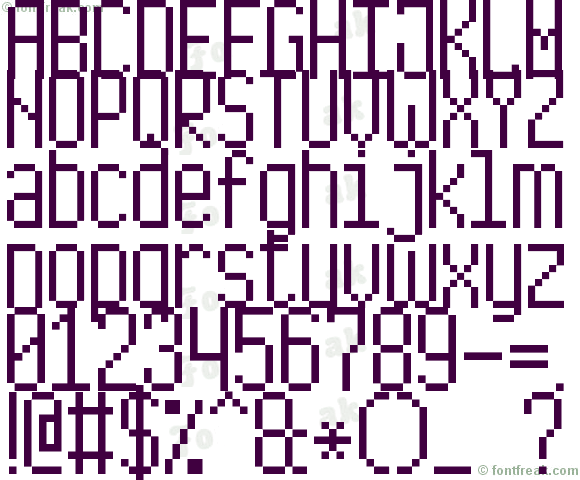
Long Pixel-7
About Long Pixel-7
Long Pixel-7 by Style-7 is a captivating display font that embodies a unique pixelated aesthetic. This font is categorized as a decorative typeface, making it an ideal choice for projects that require a modern yet nostalgic touch. The strokes are characterized by a consistent weight, creating a uniform look that enhances readability. The pixelated design adds a playful element, making it suitable for various creative applications.
One of the most appealing aspects of Long Pixel-7 is its versatility. This font can be effectively used in a wide range of contexts. For example, it is perfect for designing video game graphics, where a retro vibe can evoke a sense of nostalgia among players. Additionally, it works well for technology-related branding or promotional materials, capturing a contemporary feel that resonates with tech-savvy audiences. Long Pixel-7 is also excellent for social media graphics, allowing content creators to make eye-catching posts that stand out in crowded feeds. Furthermore, its distinctive style lends itself beautifully to music album covers, where a unique typography choice can reflect the artist's brand and musical style.
The target audience for Long Pixel-7 includes graphic designers looking to enhance their projects with a fresh typeface, small business owners aiming to create memorable branding, and content creators seeking to elevate their social media presence.
What sets Long Pixel-7 apart is its ability to combine the charm of pixel art with modern design sensibilities. This font not only captures attention but also communicates a sense of creativity and innovation. With its free download availability, it presents a fantastic opportunity for anyone looking to elevate their design work without breaking the bank. Whether for personal or commercial use, Long Pixel-7 is a font that promises to make a lasting impact.